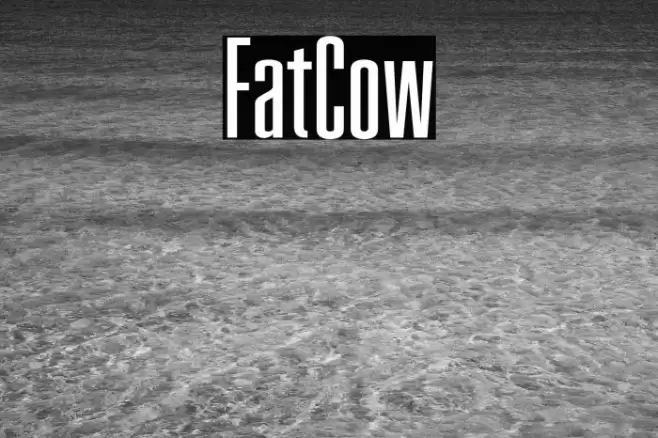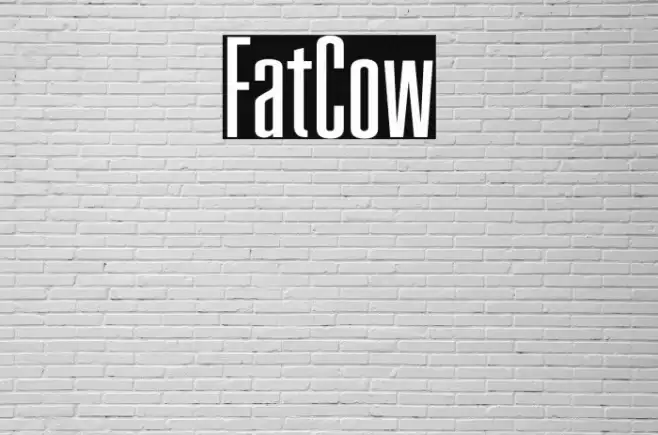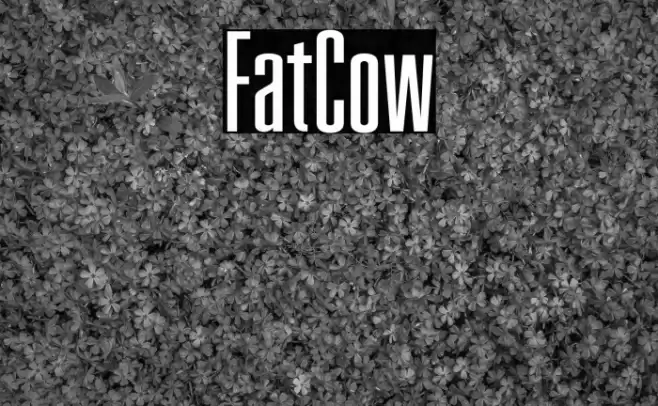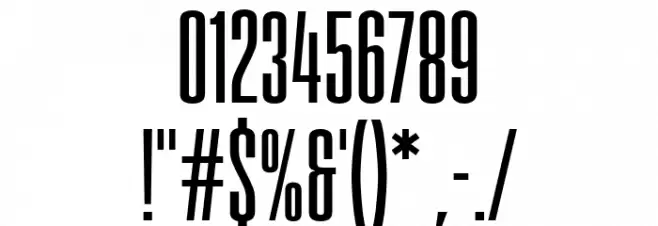
FatCow Font
FatCow Description
This font features a bold and condensed style with tall, narrow characters. The uppercase and lowercase letters maintain a consistent height, contributing to a uniform appearance. The numerals are similarly styled, ensuring a cohesive look across all characters. The font's design is modern and sleek, with minimal contrast between thick and thin strokes, giving it a clean and streamlined appearance. The special characters are well-integrated, matching the overall aesthetic of the font. This typeface is ideal for making a strong visual impact, particularly in headlines or titles.
A bold, condensed font with a modern and sleek design from Uncategorized fonts.
- Proposed Projects: Ideal for headlines, posters, branding, and advertising where a strong visual impact is needed.
- Character Spacing: Tight